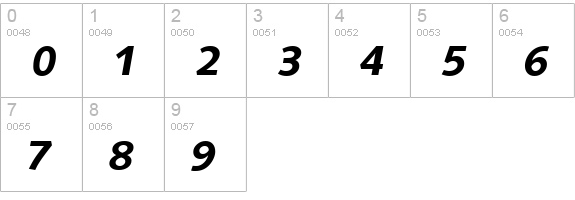
Introducing SaxonySerial-BoldItalic, a bold and dynamic font that makes a statement with its unique design. This font exudes confidence and sophistication, making it perfect for headlines, titles, and branding projects. The bold italic style adds a touch of elegance and flair to any text, creating a visually striking impact. What's even better is that SaxonySerial-BoldItalic is available for free download at FontsMarket.com. This means you can easily access this eye-catching font and use it in your projects without any cost. Whether you're working on a professional design or a personal project, SaxonySerial-BoldItalic is a versatile font that will elevate your work to the next level. Don't miss out on this opportunity to enhance your designs with SaxonySerial-BoldItalic. Download it for free today at FontsMarket.com and unleash your creativity with this stunning font.